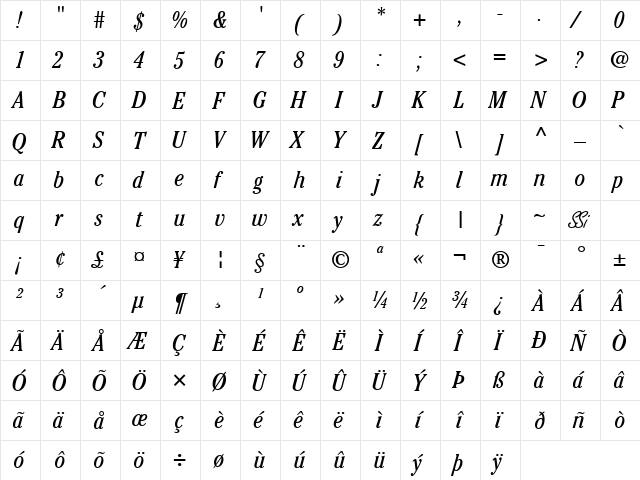
Cheltenham Condensed SSi Condensed Italic
Design Context for Cheltenham Condensed SSi Typeface
Cheltenham Condensed SSi offers clean, dependable letterforms without strong stylistic allegiance, making it a practical choice for designers who need flexibility. The slanted form adds forward momentum and visual energy. Its narrow stance lets it pack a punch even in space-constrained designs.
Pro Tip: Use Cheltenham Condensed SSi for emphasis, pull quotes, and subheadings where its slanted energy can add rhythm to the layout.